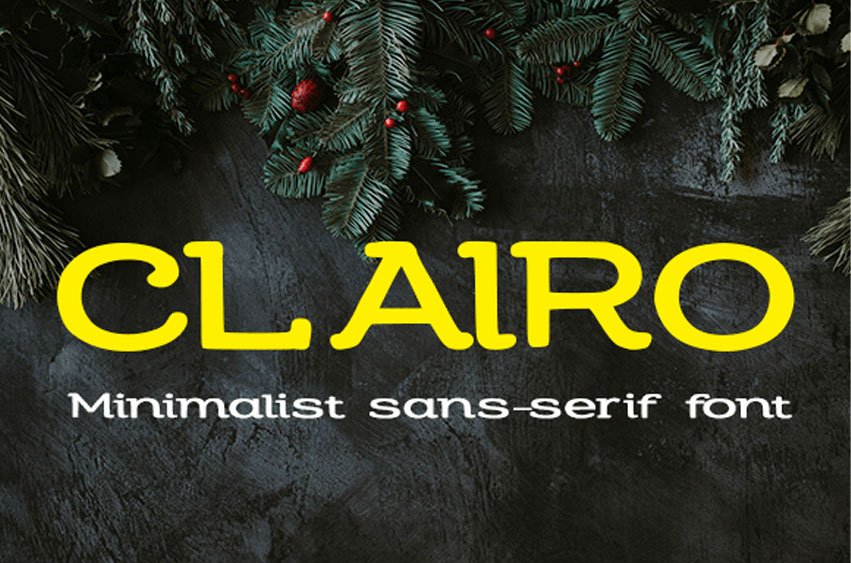
Clairo Font Immerse yourself in the world of contemporary typography with this Minimalist sans-serif font, meticulously crafted with precise geometry and modern proportions.
Enjoy thrilling readability and versatility that effortlessly lends itself to branding, logos, user interface design, social media content, and editorial layouts. The simple yet timeless nature of this typeface makes it a universal choice for both digital and print media, ensuring your design communicates with distinction and class.
Experience the optimal blend of aesthetics and convenience with this Minimalist sans-serif font.